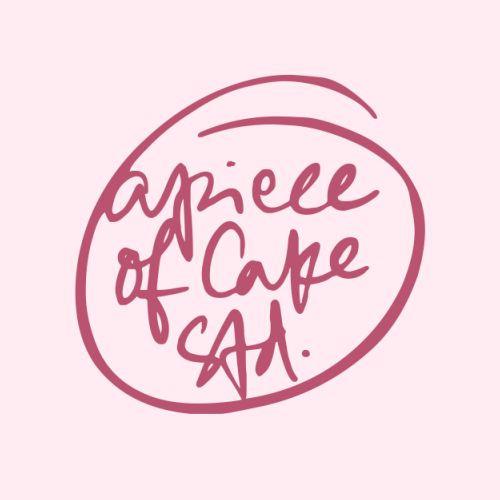
Love Attack Font Description
Love Attack is a stylish and delicate handwritten duo font suitable for a wide spectrum of applications. From greeting cards to headlines, you can add this spectacular font to any of your creative projects, and it will guarantee them a romantic handwritten touch.